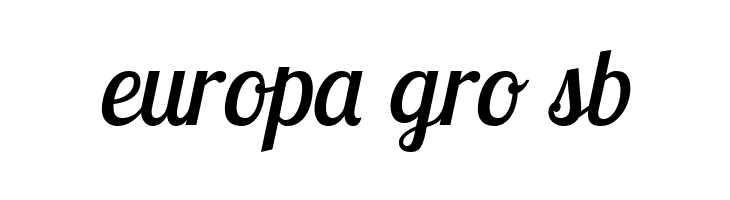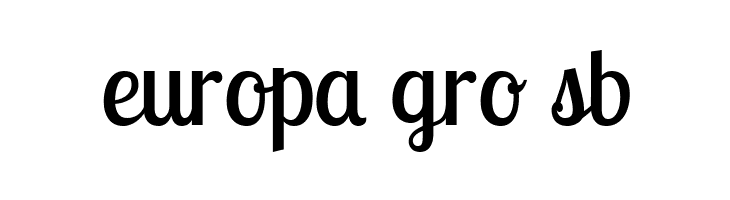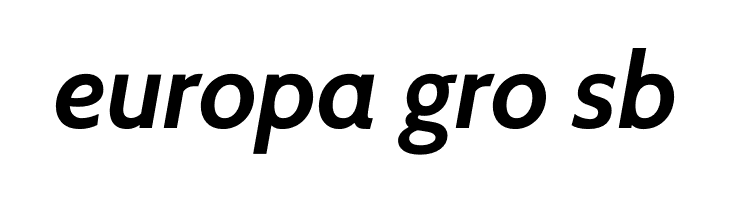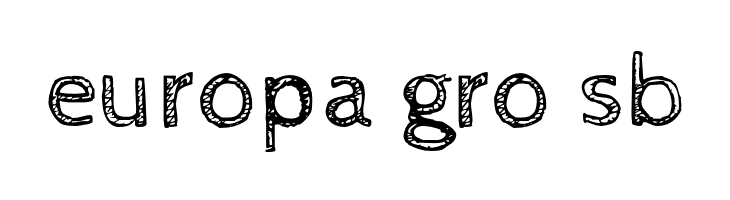
A classic, elegant cursive font with smooth, flowing strokes and moderate contrast.
A bold, flowing script font with a modern, handwritten style.
A bold, flowing script font with elegant, interconnected letters.
A bold, flowing script font with a modern and elegant style.
A bold, italicized sans-serif font with a modern and elegant style.
A clean and elegant italic typeface with smooth curves and consistent stroke width.
A bold, cursive font with elegant, flowing lines.
A bold, flowing script font with elegant curves and modern flair.
A bold, flowing script font with elegant curves and connected letters.
An elegant script font with smooth, flowing lines and a sophisticated appearance.
A modern, rounded sans-serif font with uniform stroke width and high legibility.
A clean, geometric sans-serif font with rounded edges and a modern, minimalistic style.
A modern, rounded sans-serif font with a clean and approachable style.
A bold, rounded sans-serif font with a modern and friendly style.
A modern, extra-light sans-serif font with a geometric and minimalist design.
A modern sans-serif font with rounded edges and consistent stroke width.
A modern, rounded sans-serif font with a friendly and clean appearance.
A modern, rounded sans-serif font with a friendly and approachable style.
A modern, bold sans-serif font with excellent readability and a clean design.
A modern, elegant sans-serif font with a subtle italic slant.
A bold, rounded font with a playful and approachable style.
A modern serif font with elegant curves and clean lines.
A bold, rounded serif font with a modern and playful style.
A classic serif font with elegant italics and moderate contrast, perfect for refined applications.
A classic serif typeface with elegant serifs and balanced stroke contrast.
A classic serif typeface with high contrast and elegant design.
A playful and friendly font with rounded, slightly condensed letterforms and thin strokes.
A bold serif font with a classic yet modern style, featuring strong vertical lines and subtle curves.